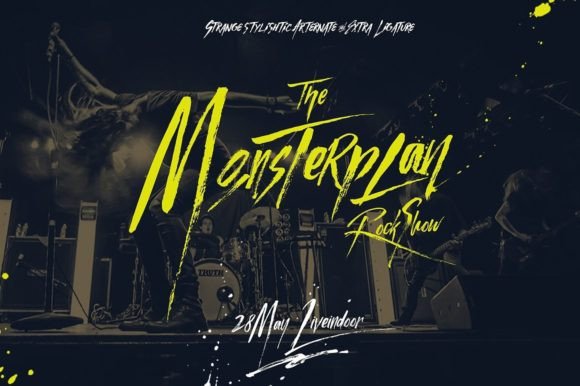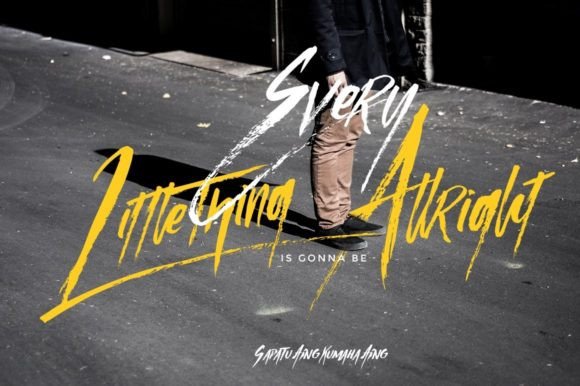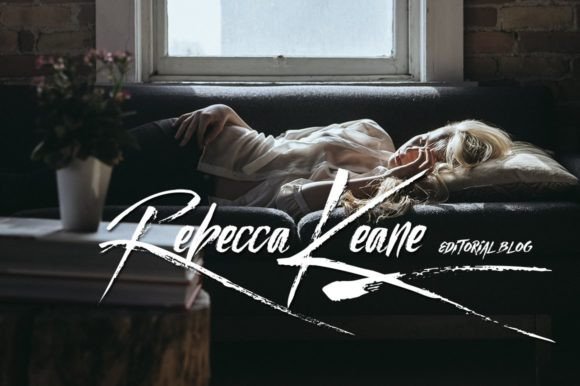
Introducing Electric Vibe Font: Elevate Your Designs with a Touch of Elegance
In the world of typography, fonts play a crucial role in conveying the tone and aesthetic of a design project. For designers and crafters looking to add a touch of modern elegance to their work, Electric Vibe Font is an excellent choice. This contemporary display font boasts an attractive handwritten style, characterized by eccentric lines, curves, and a minimal aesthetic that is sure to captivate audiences.
What is Electric Vibe Font?
Electric Vibe is a carefully crafted display font that embodies the essence of modern design. Its handwritten style is not just a nod to traditional typography but is infused with a contemporary twist, making it perfect for use in headings and titles. The font’s clean and eye-catching look is designed to add a layer of sophistication to any design project, whether it’s a branding exercise, a website, a print publication, or a digital artwork.
Key Features of Electric Vibe Font
- Handwritten Style: Electric Vibe Font features a unique handwritten style that sets it apart from more traditional fonts. Its organic feel adds a personal touch to designs.
- Eccentric Lines and Curves: The font’s design is characterized by excentric lines and curves, giving it a dynamic and expressive look.
- Minimal Aesthetic: Despite its expressive nature, Electric Vibe maintains a minimal aesthetic, ensuring it doesn’t overwhelm the design but rather complements it.
- Clean and Eye-Catching: The clean design of Electric Vibe makes it highly legible, while its eye-catching appearance ensures it grabs attention.
- Perfect for Headings and Titles: Its primary use case is for headings and titles, where a standout font can make a significant impact.
Electric Vibe Font offers numerous benefits for designers and crafters looking to elevate their projects:
- Elegance and Sophistication: It adds a touch of elegance and sophistication, making projects stand out.
- Versatility: Despite being a display font, Electric Vibe can be used across various design projects, from digital media to print.
- Easy to Read: Its clean and minimalistic approach ensures that the text remains easy to read, even in larger sizes.
- Unique Appeal: The eccentric lines and curves give Electric Vibe a unique appeal that can help brands differentiate themselves.
How to Use Electric Vibe Font Effectively
To make the most of Electric Vibe Font, consider the following tips:
- Pair with Neutral Fonts: When using Electric Vibe for headings, pair it with more neutral fonts for body text to create contrast.
- Experiment with Sizes: Play around with different sizes to emphasize certain words or phrases, especially in titles.
- Color Matters: Choose colors that complement the overall design aesthetic. Electric Vibe works well with both bright and muted color palettes.
- Consider the Medium: Ensure that the font scales well across different mediums, from mobile screens to large billboards.
Electric Vibe Font is a versatile and stylish addition to any designer’s toolkit. Its unique blend of a handwritten style with a minimal aesthetic makes it perfect for projects that demand a touch of elegance and modernity. Whether you’re working on a branding project, a website, or a digital artwork, Electric Vibe is sure to make your designs stand out. Explore the creative possibilities with Electric Vibe Font and elevate your design projects to new heights.